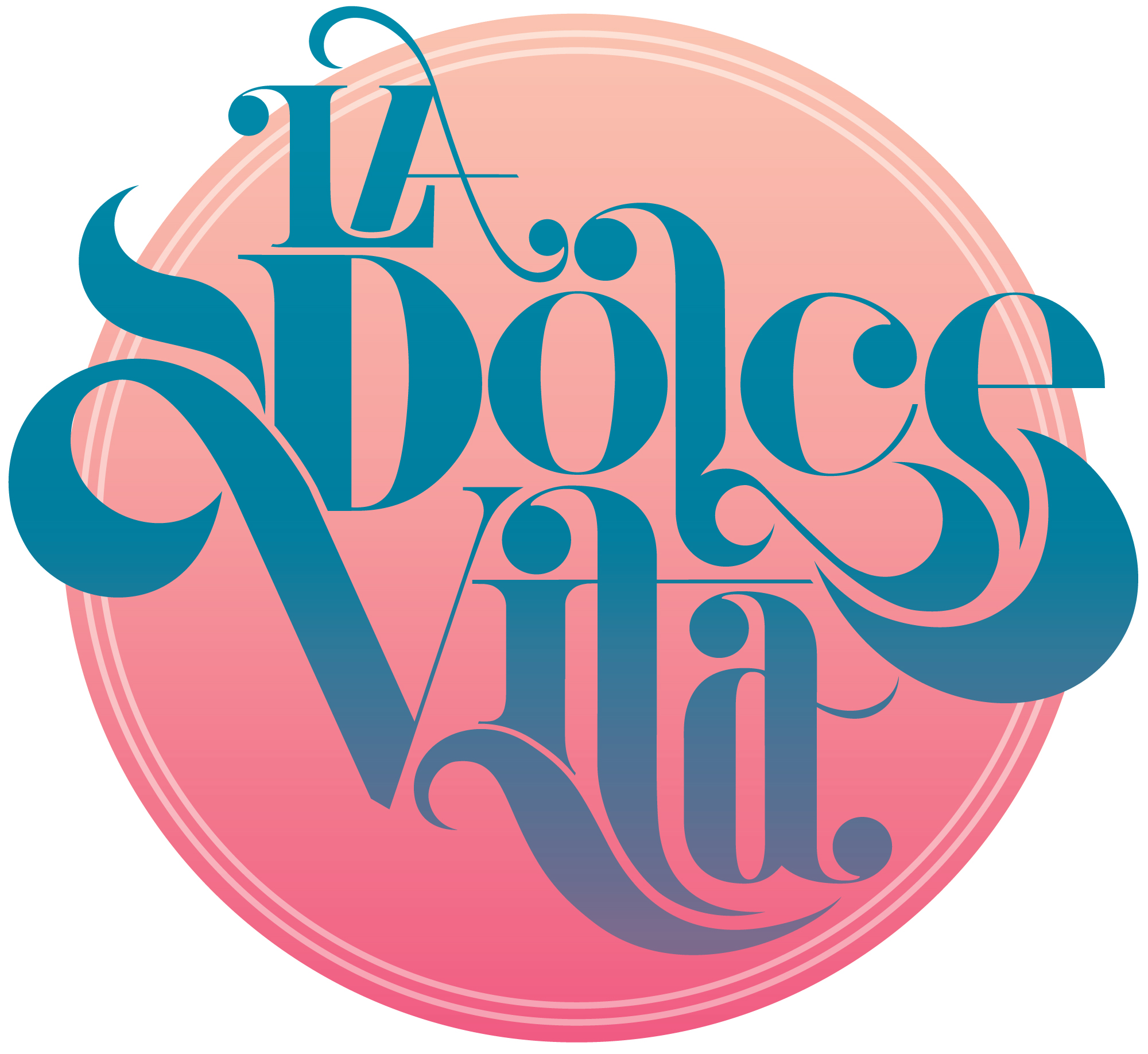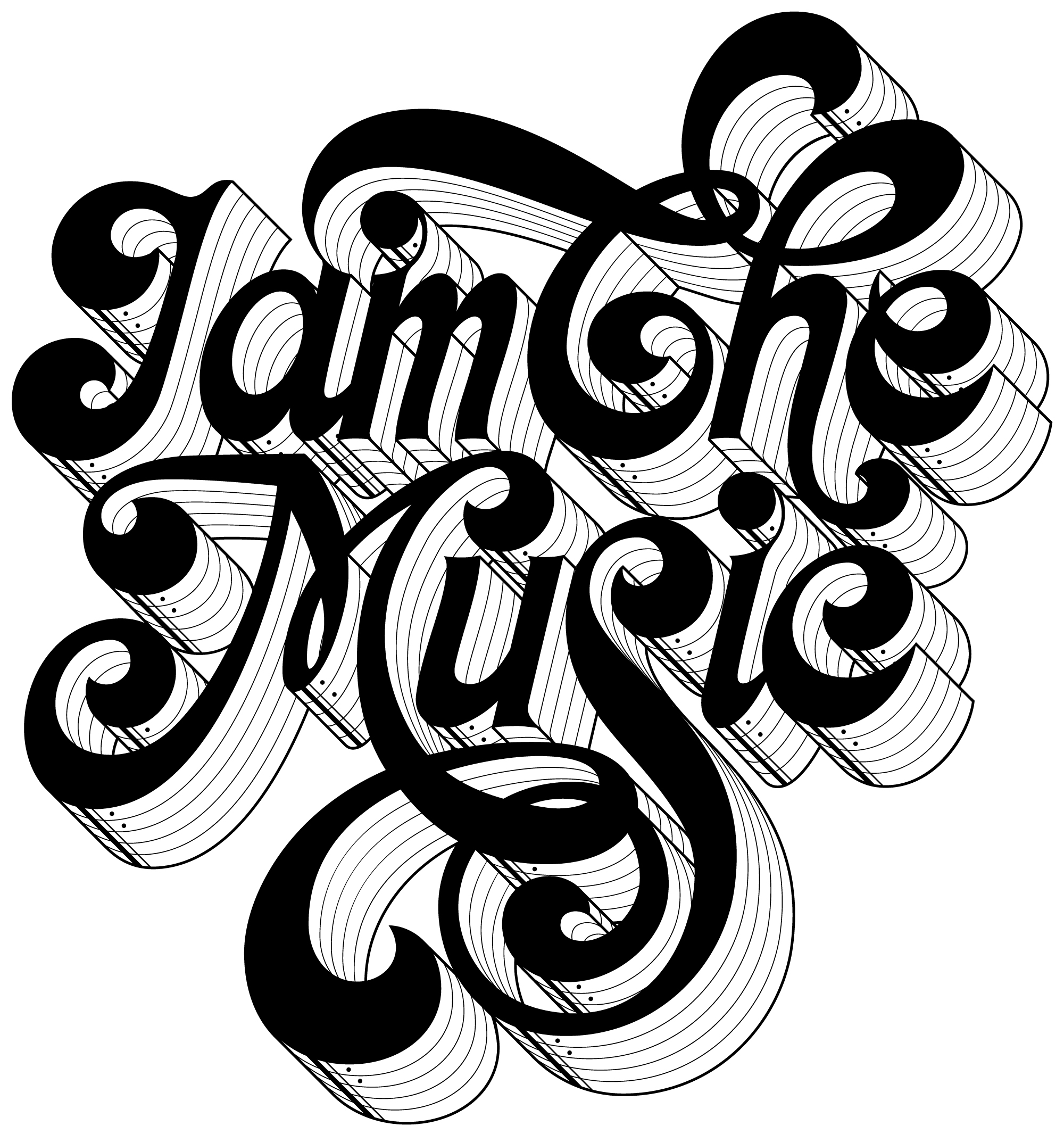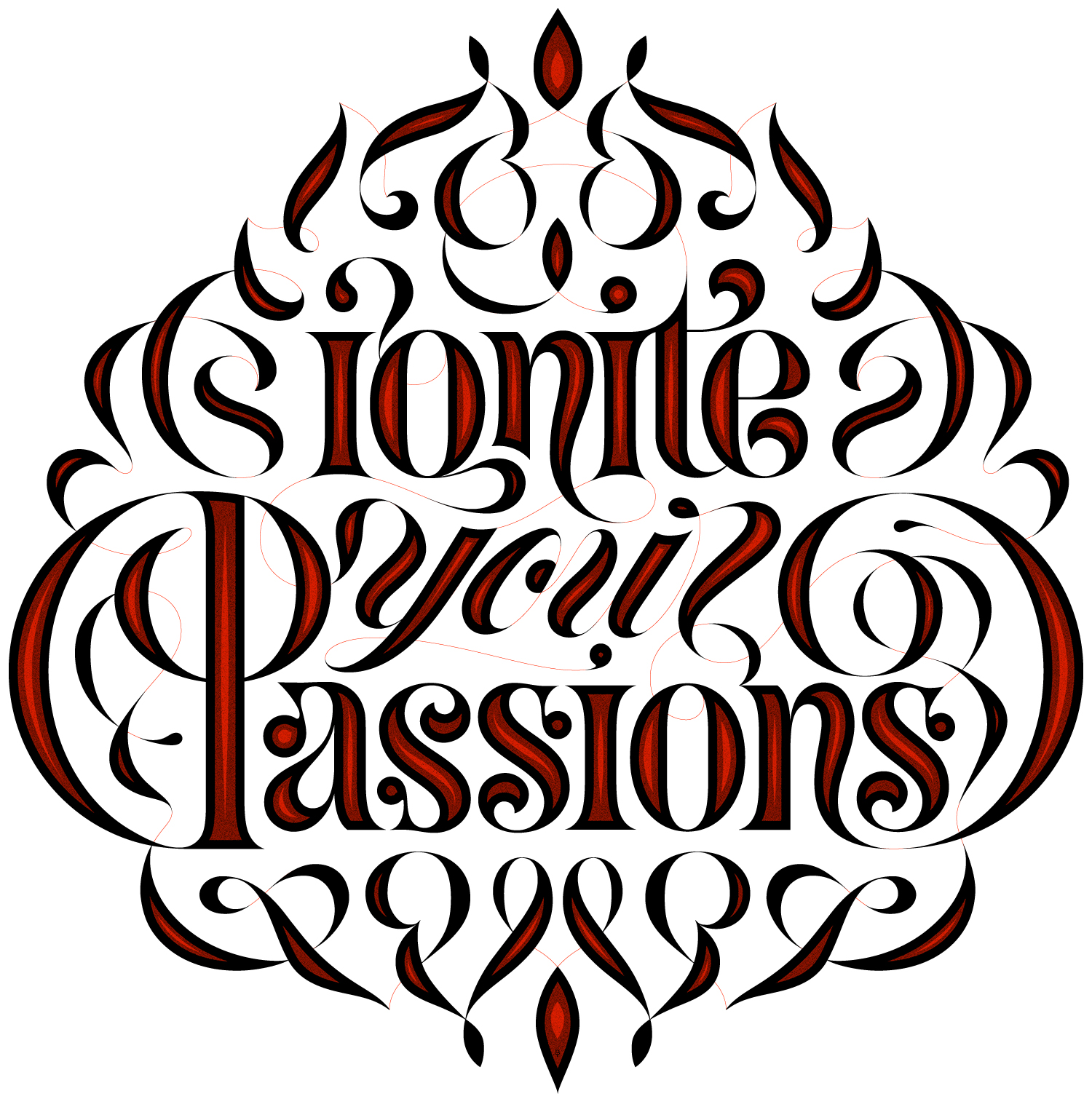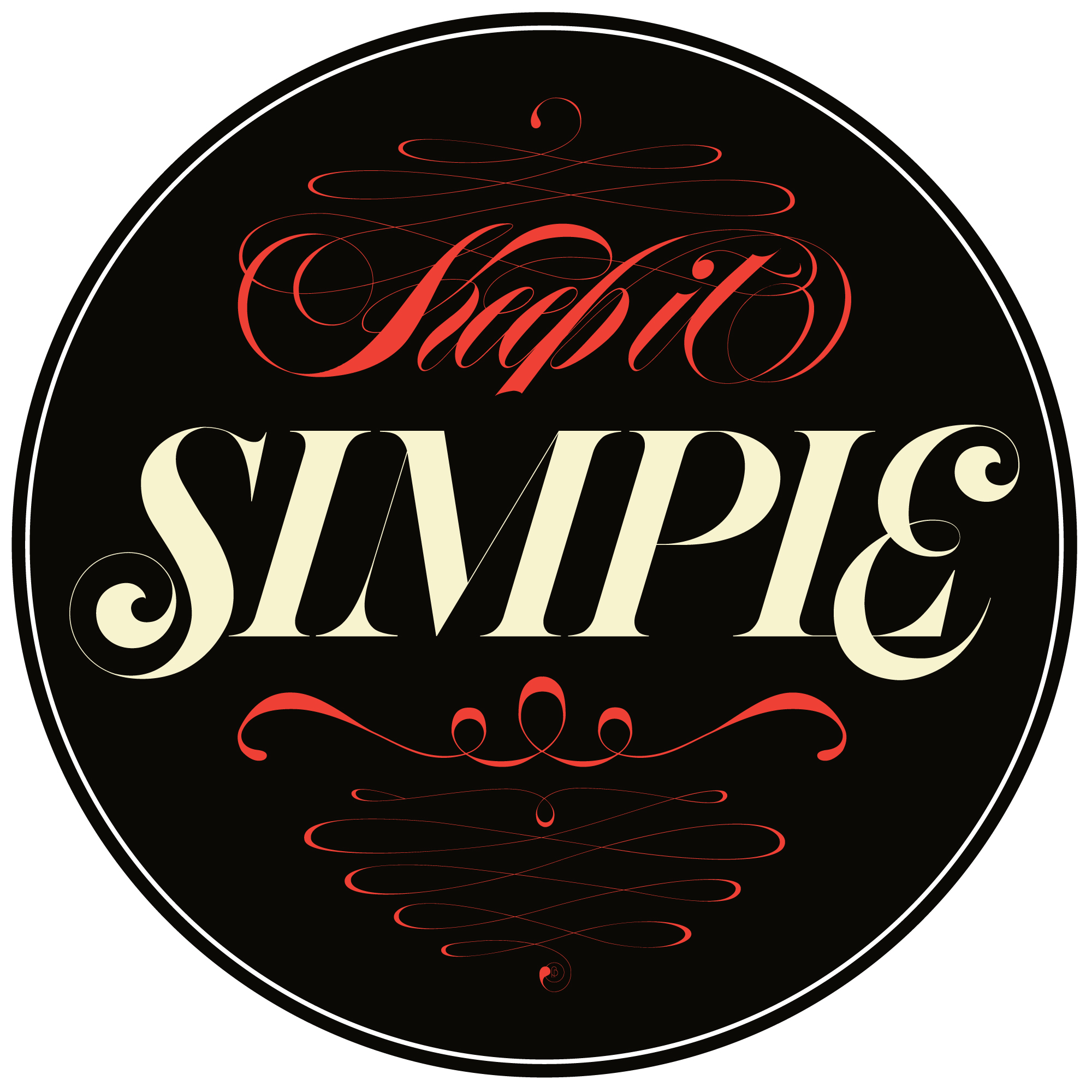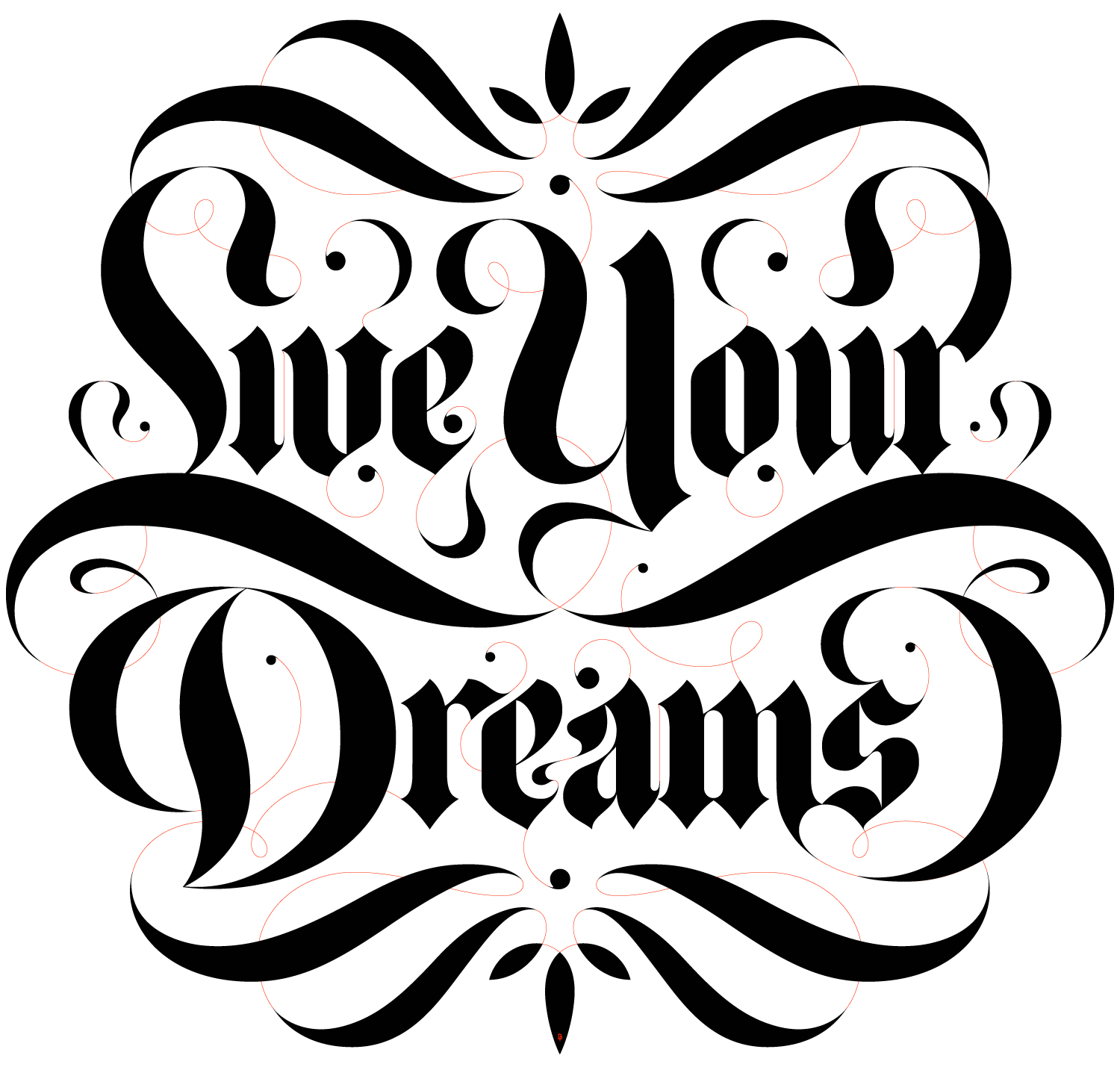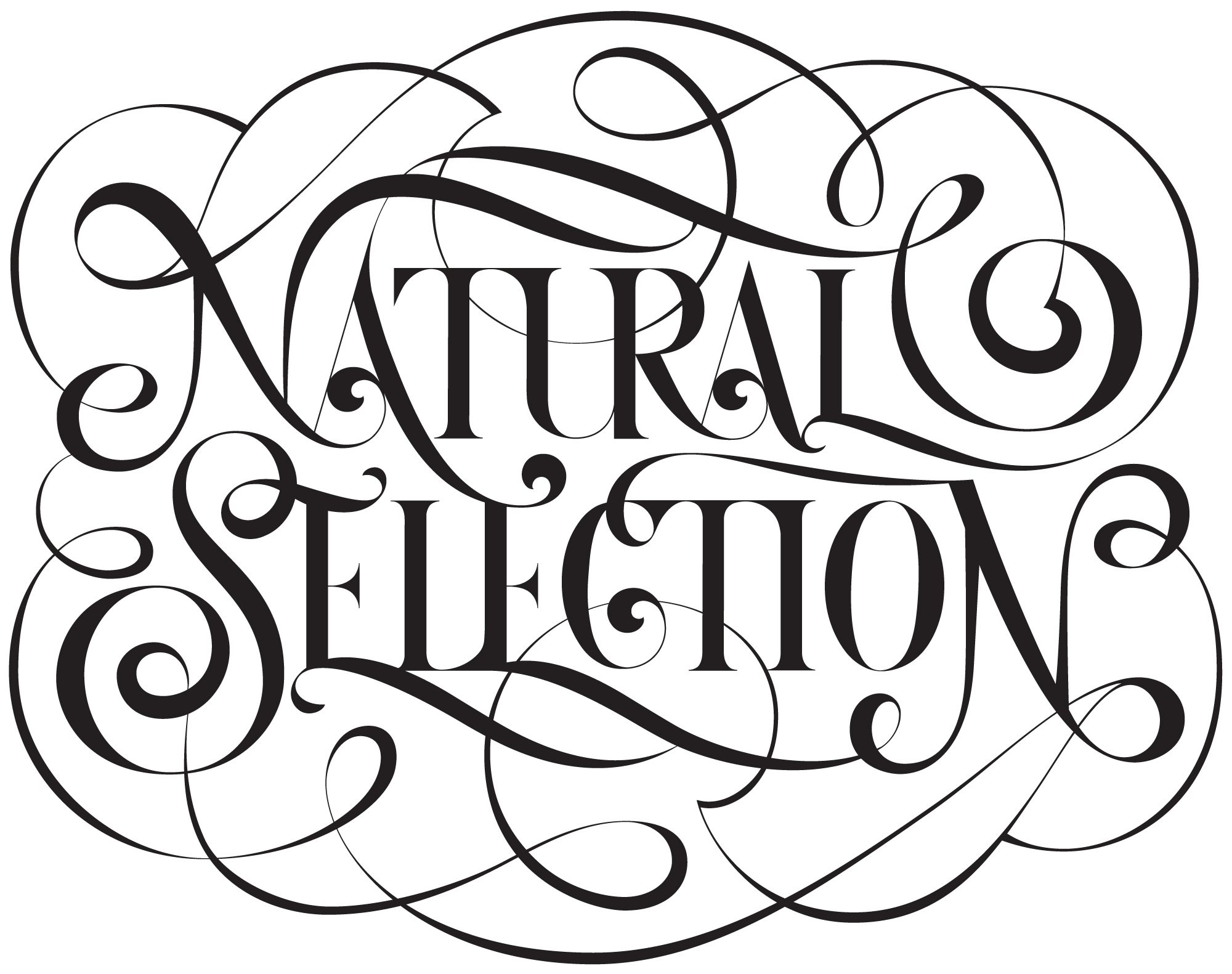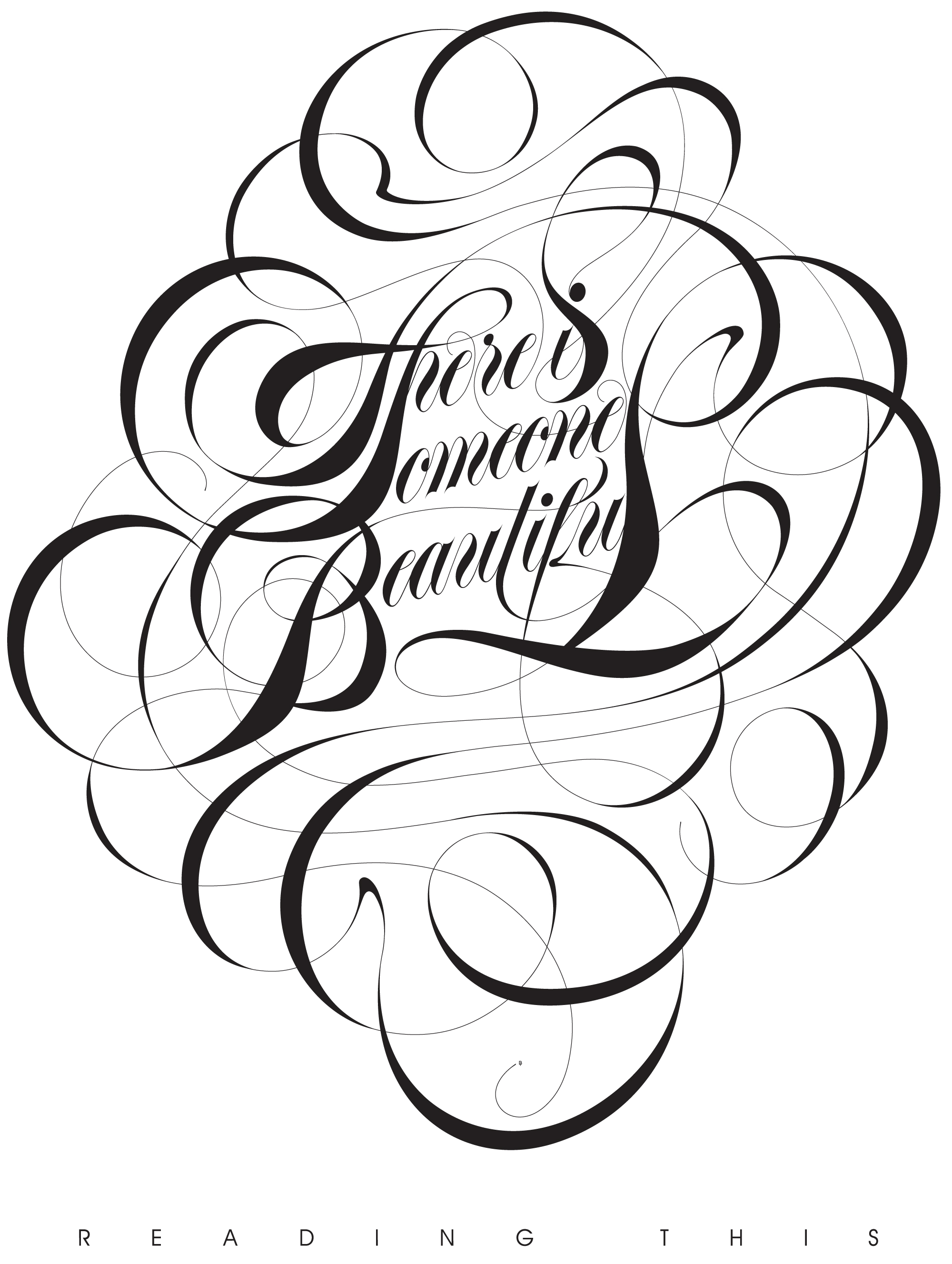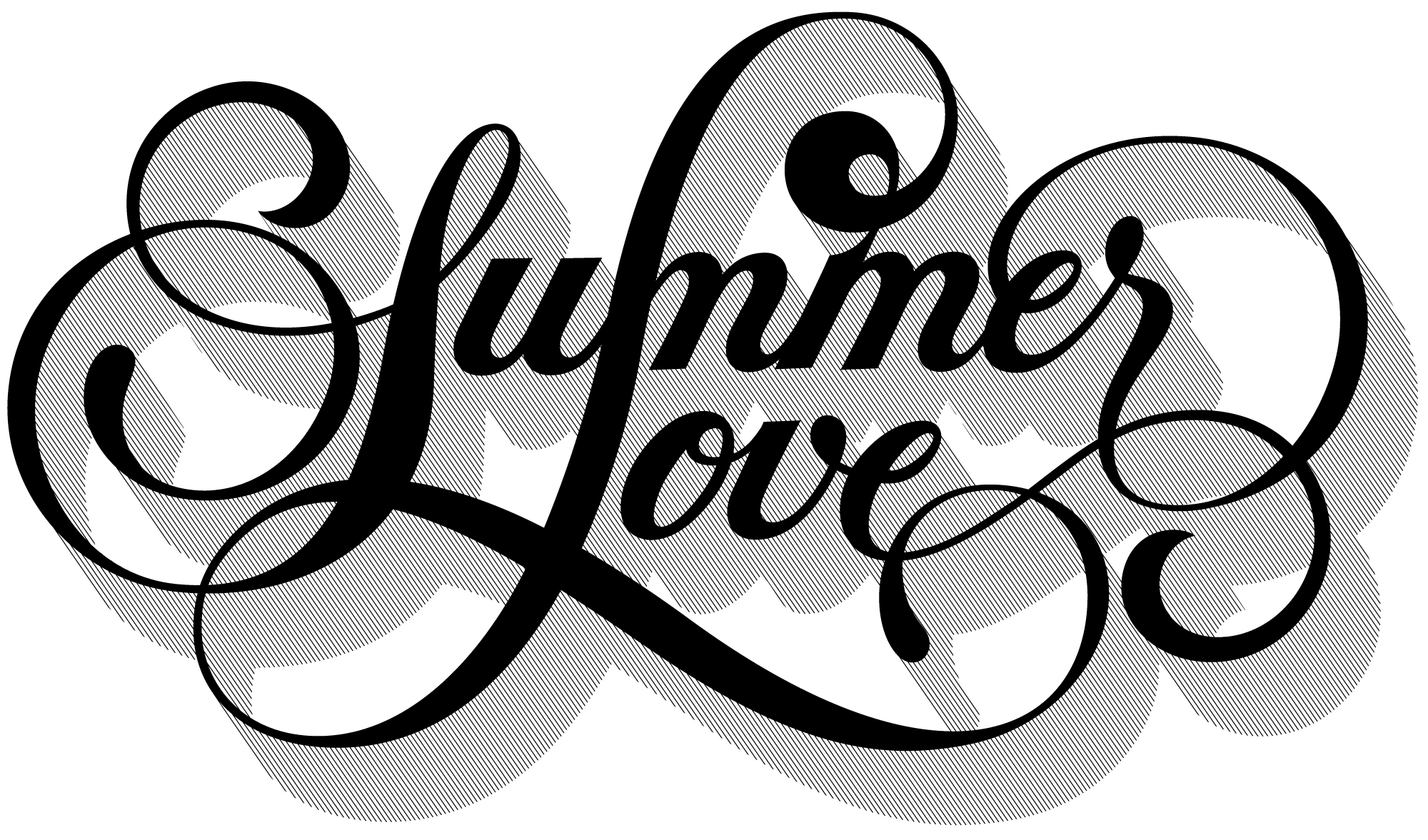
This collection of work features custom lettering designs and typefaces that I’ve created over the years. My interest in lettering began when I started viewing letterforms as a fusion of graphic design and art, where words can be designed in visually engaging ways, embodying beauty, flow, and subtle meaning through the interplay of elements. My custom lettering showcased here reflects that appreciation. The Allure typeface was inspired by my fascination with elongated Cyrillic calligraphy, a style with personal significance due to my Balkan roots. Subconscious Limbo originated from a custom type title I designed for a music album cover, which I found compelling enough to develop into a complete typeface. Both Allure & Subconscious Limbo typefaces are available for download here.